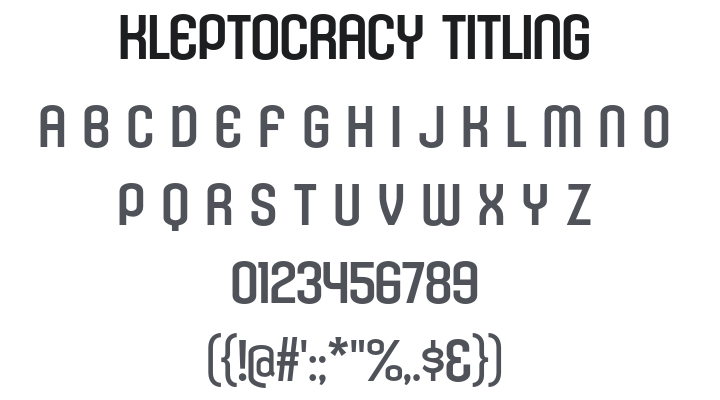
Kleptocracy Titling Font Family
About Kleptocracy Titling
Kleptocracy Titling is a compact, all-caps industrial typeface built for authority and precision. Its utilitarian geometry and subtle cursive-inspired curves give it both grit and refinement, making it ideal for logos, posters, and packaging that need to command attention. Available in three weights and three widths, it adapts effortlessly from tight layouts to bold displays. With broad Latin language support and a free commercial-use desktop license, Kleptocracy Titling offers strong, versatile typography that speaks with confidence and control. For a version with lowercase, look for the full version of Kleptocracy from Typodermic Fonts.